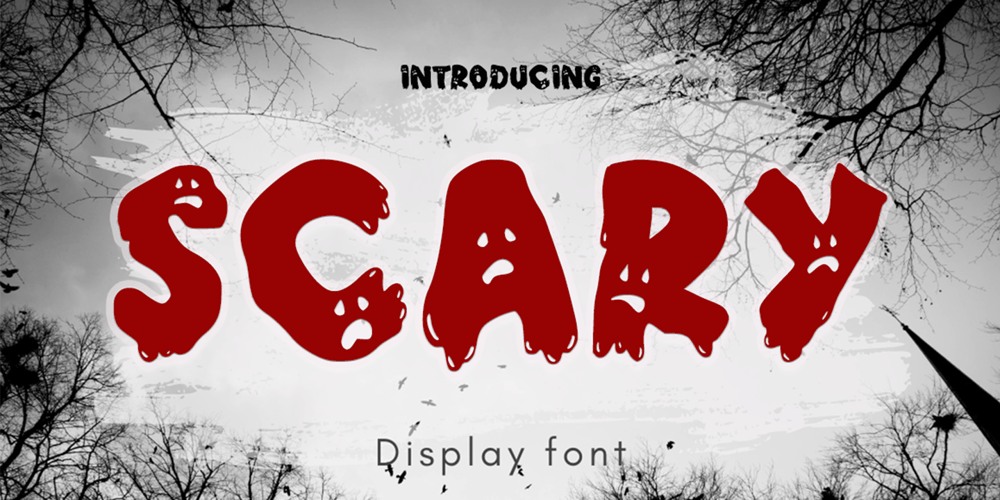
Scary Font Family was designed by Muhammad Zaini and published by Cocodesign. Scary contains 1 styles and family package options. scary is a handwritten font display cute and cute font, suitable for various purposes you want,like halloween day and scary days .If you need help or have questions, please let me know. I am happy to help ๐ Thank you & Congratulations on Designing!– Uppercase